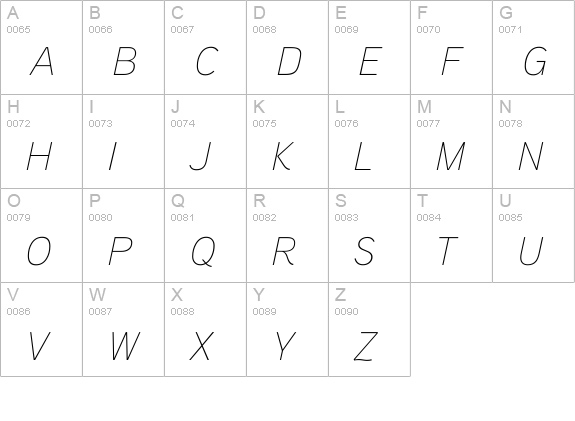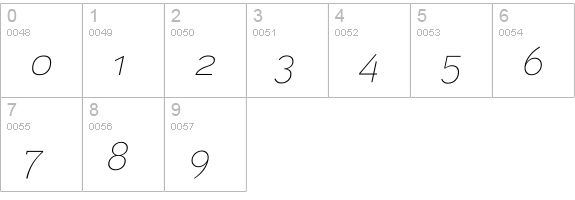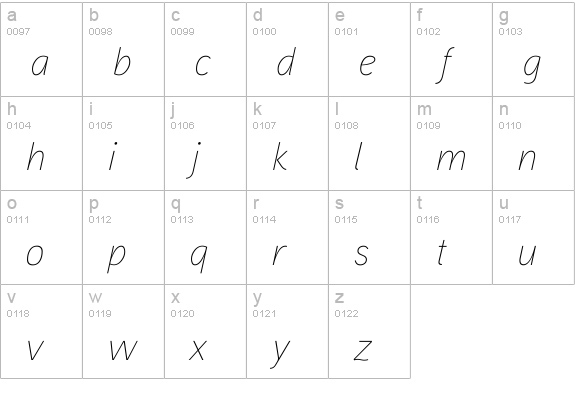
Aaux ProThin Italic OSF Font Details
Aaux ProThin Italic OSF is a distinctive, italic variant in the Aaux typeface family \xE2\x80\x94 well suited to design and typography projects.
Aaux ProThin Italic OSF font is a sleek and sophisticated typeface that exudes elegance and modernity. With its delicate italic styling and open-source figures, this font is perfect for adding a touch of sophistication to any design project. The subtle curves and precise angles of Aaux ProThin Italic OSF font create a sense of refinement and class that is sure to make your text stand out. Best of all, Aaux ProThin Italic OSF font is available for free download at FontsMarket.com. Whether you're working on a professional presentation, designing a website, or creating a beautiful print piece, this font is a versatile and stylish choice that will elevate your work to the next level. Don't miss out on the opportunity to enhance your projects with the timeless beauty of Aaux ProThin Italic OSF font - download it for free today!